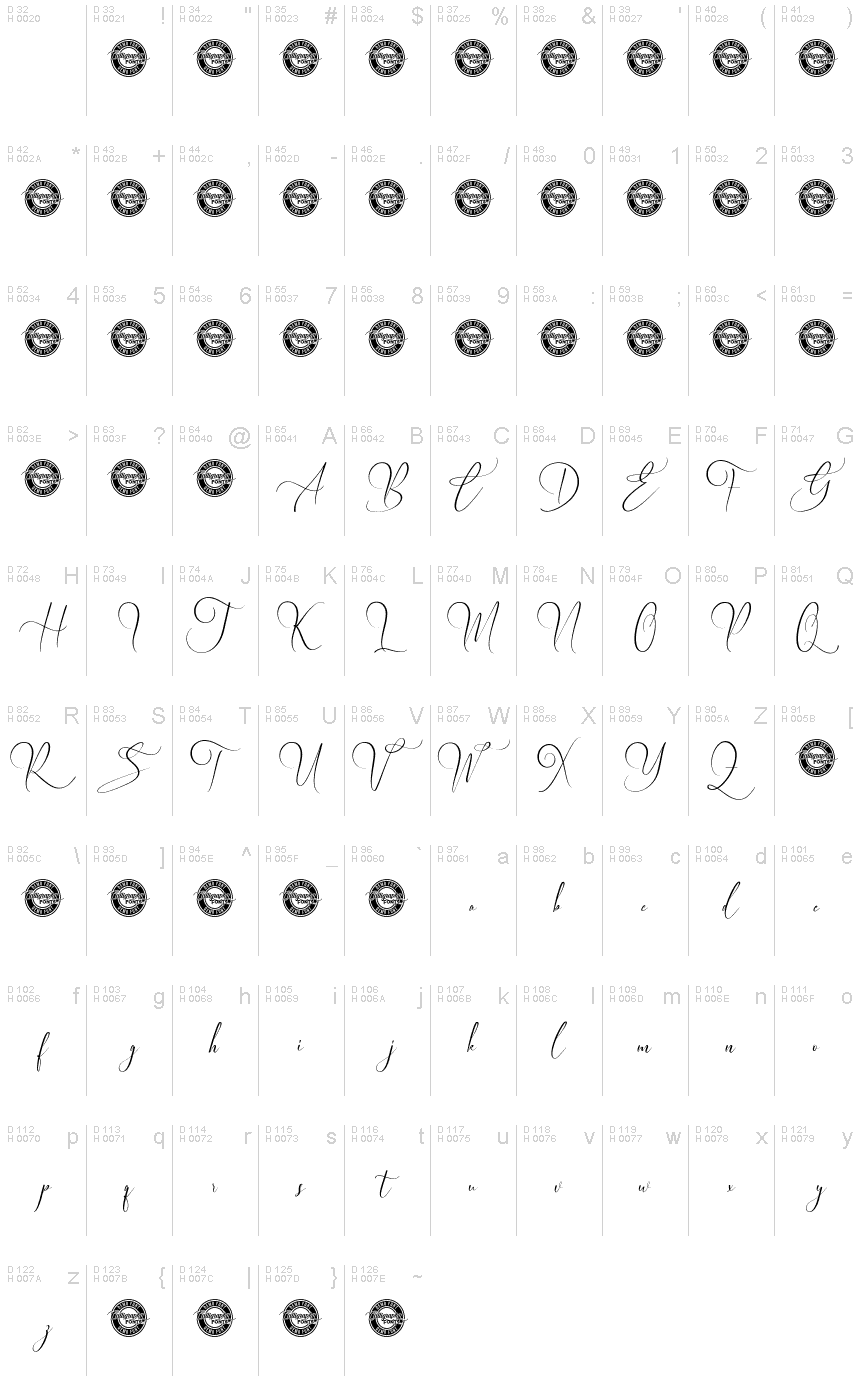
Elegant Wedding Demo
Elegant Wedding is a beautiful calligraphy script font family by Wdiyanti & Suci Anita. Its graceful curves and delicate flourishes make it ideal for wedding invitation cards, stationery, logos and any other creative projects.